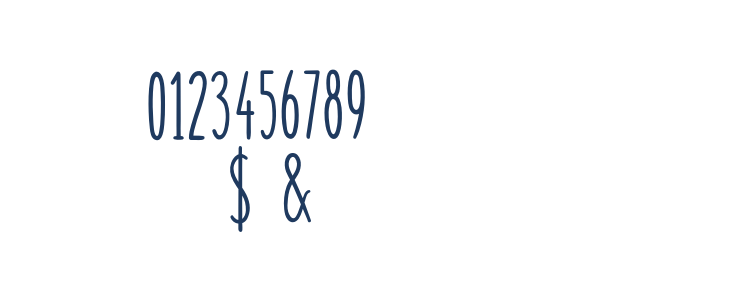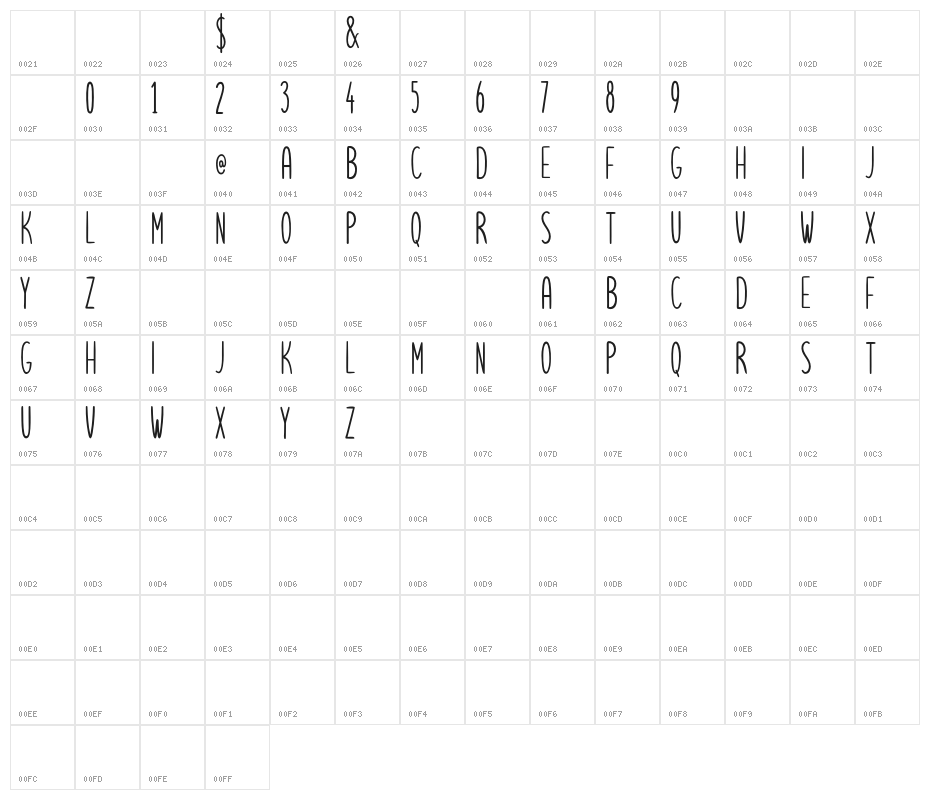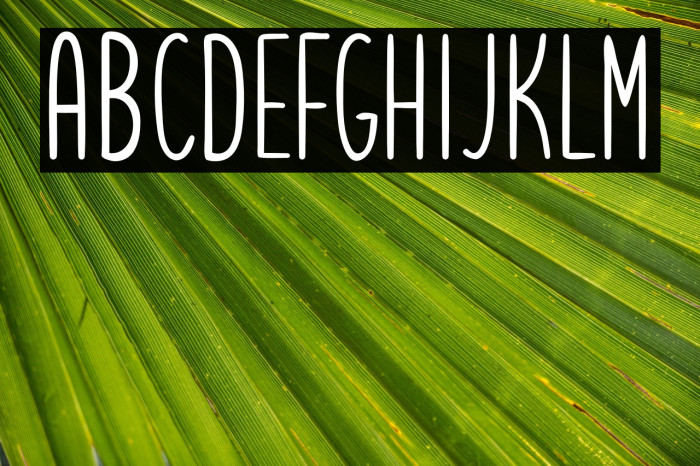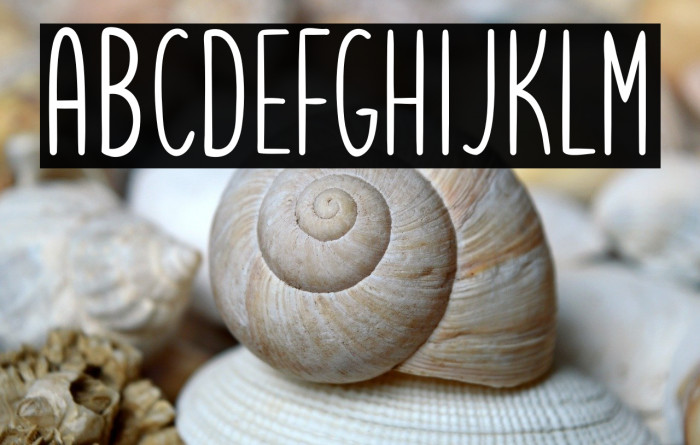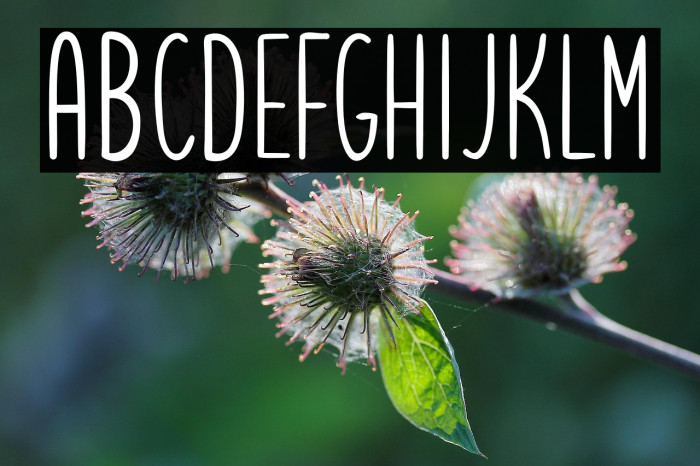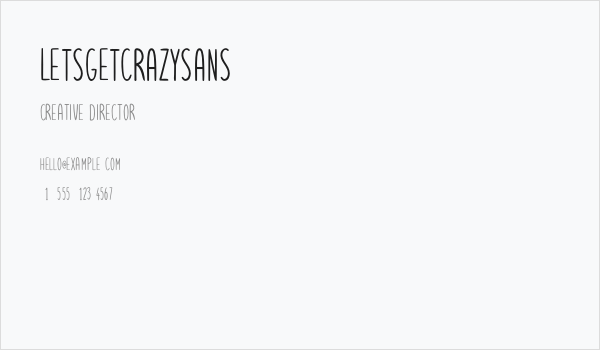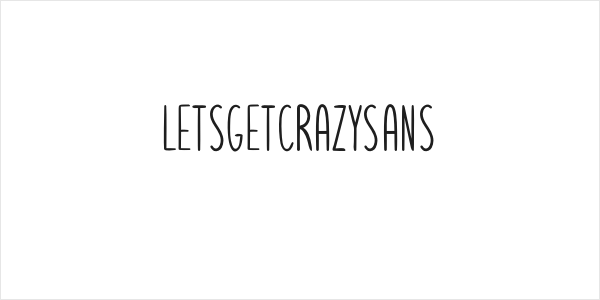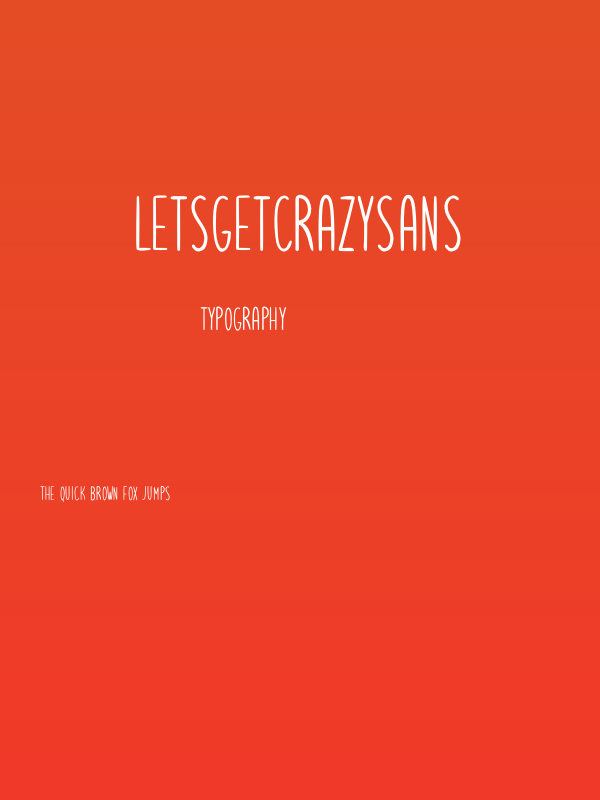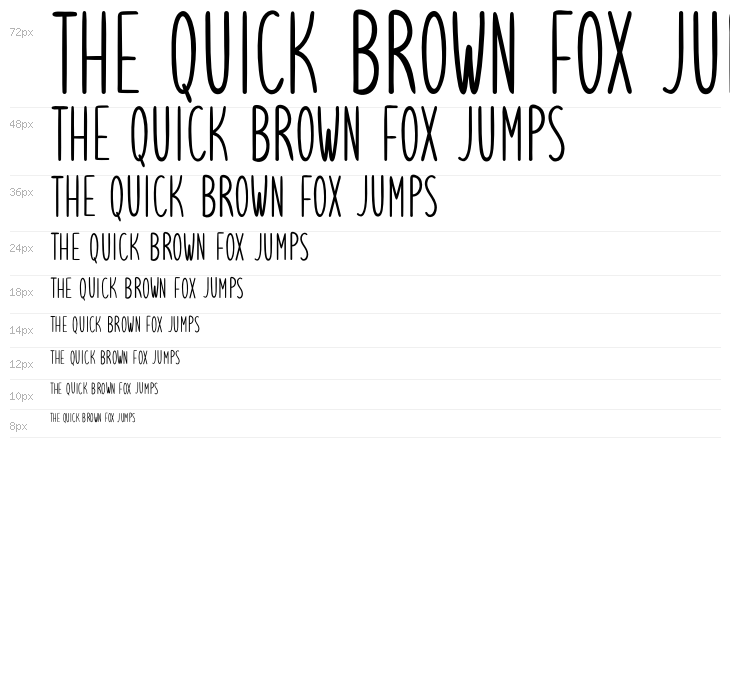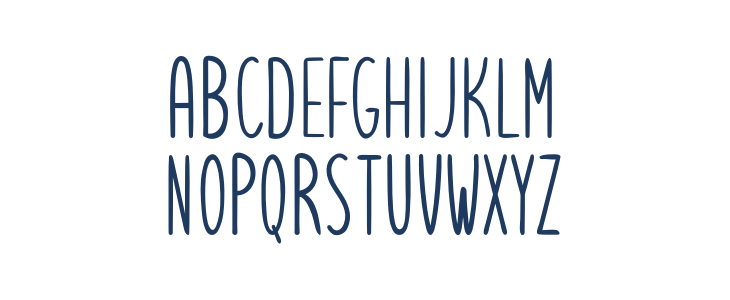
Letsgetcrazysans Font
Letsgetcrazysans Description
This font features a playful and whimsical design with tall, narrow characters that convey a sense of fun and energy. The letters are slightly irregular, giving them a hand-drawn appearance that adds to their charm. The strokes are consistent in width, with rounded edges that soften the overall look. This style is particularly effective in creating a casual and approachable feel, making it suitable for a variety of creative projects. The numbers and special characters maintain the same lively aesthetic, ensuring a cohesive look across all text elements.
| Proposed Projects | Ideal for children's books, playful branding, greeting cards, and creative posters. |